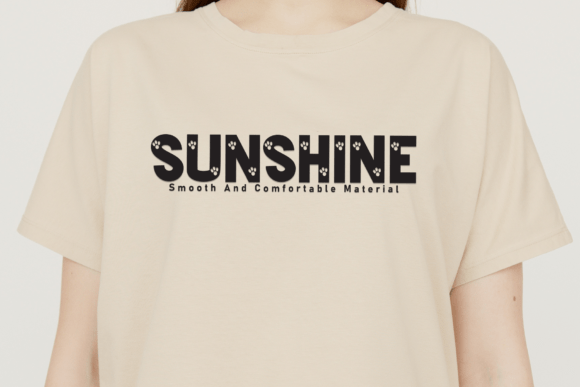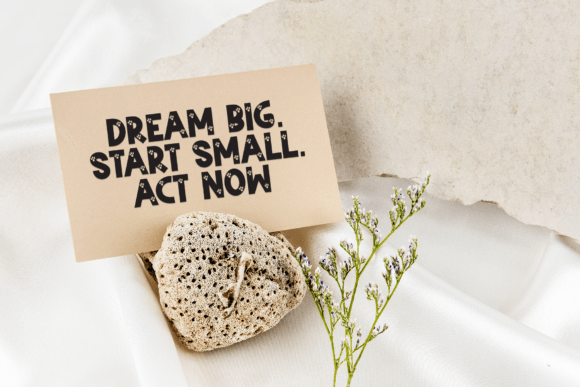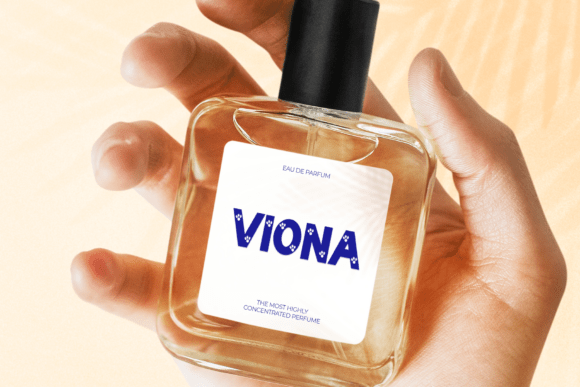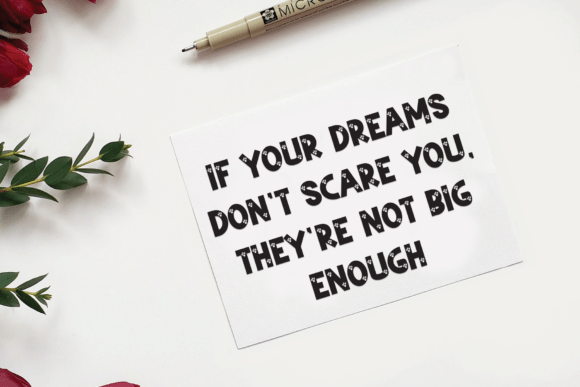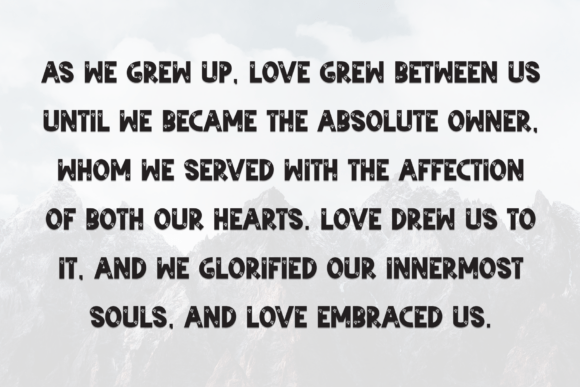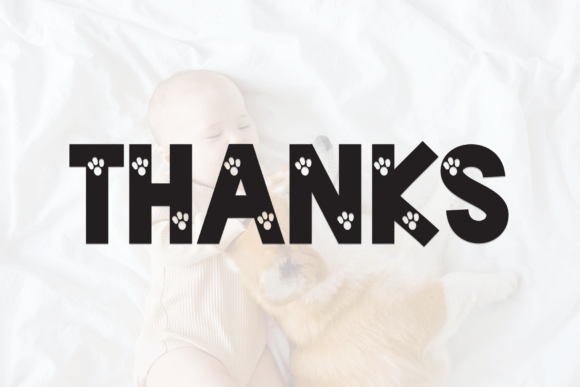
Introduction to Baby Puppy Font
Baby Puppy is a charming and playful display font that blends bold geometric lettering with adorable paw print accents.
Its clean, chunky shapes ensure excellent readability, while the embedded paw details bring a fun, heartwarming personality perfect for pet lovers and childrenโs designs Whether used for baby apparel, pet product packaging, animal-themed party invitations, or playful branding, Baby Puppy adds a sweet and friendly touch.